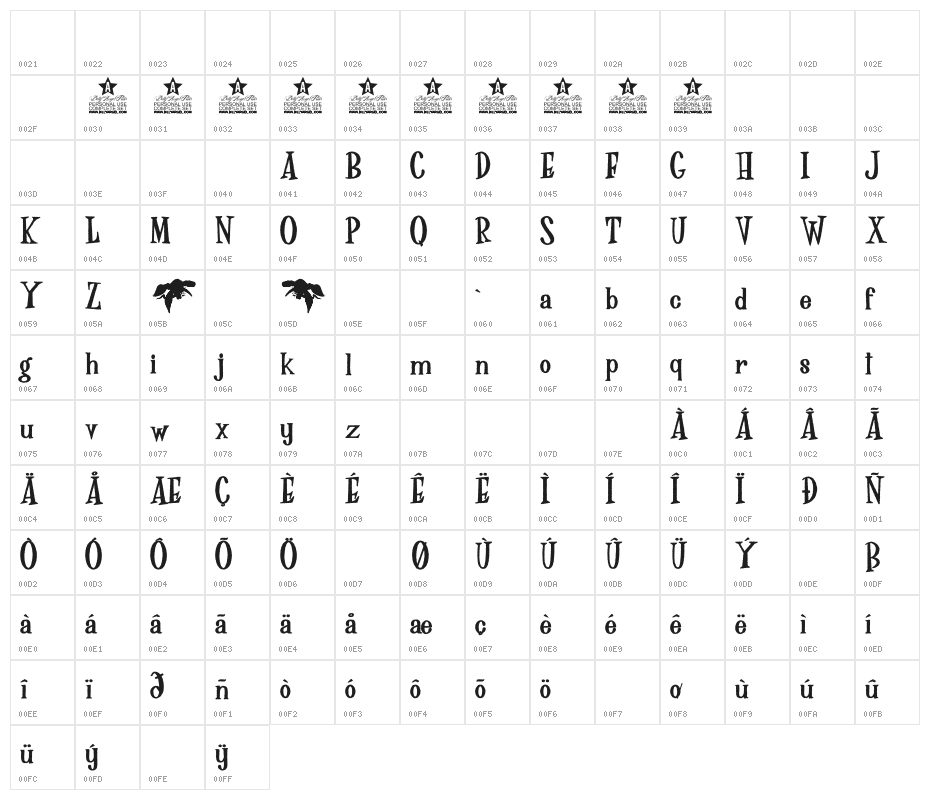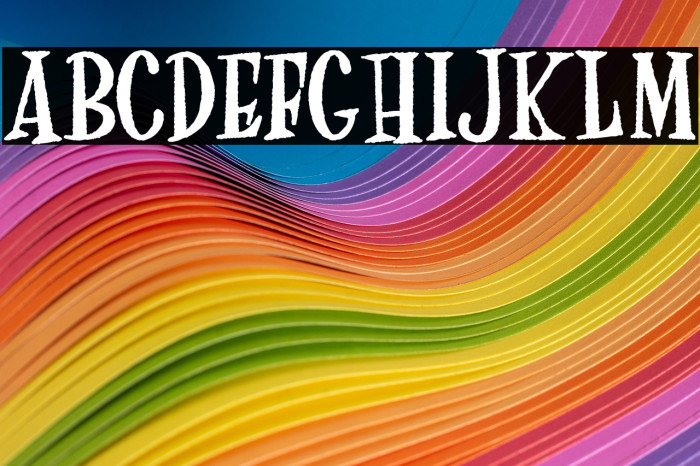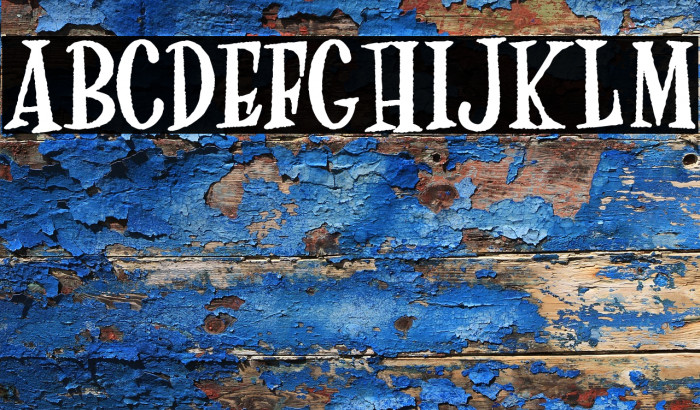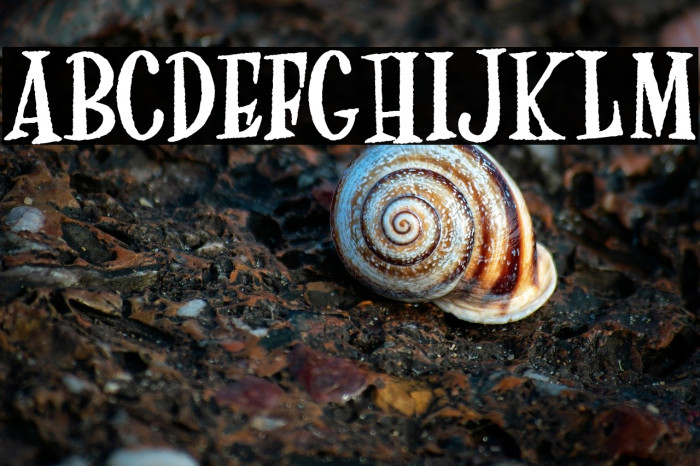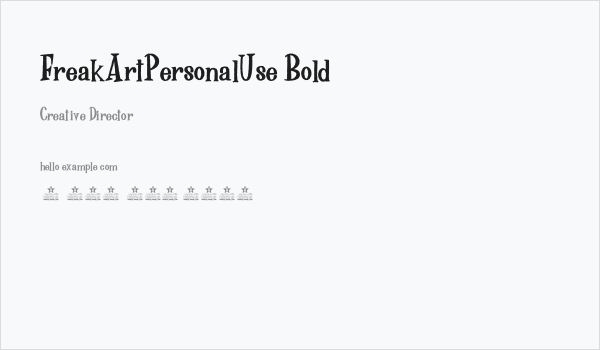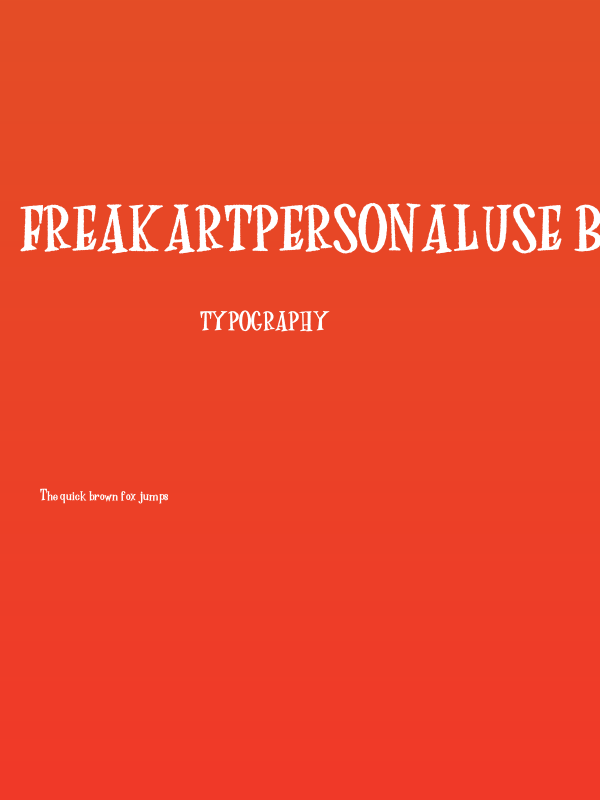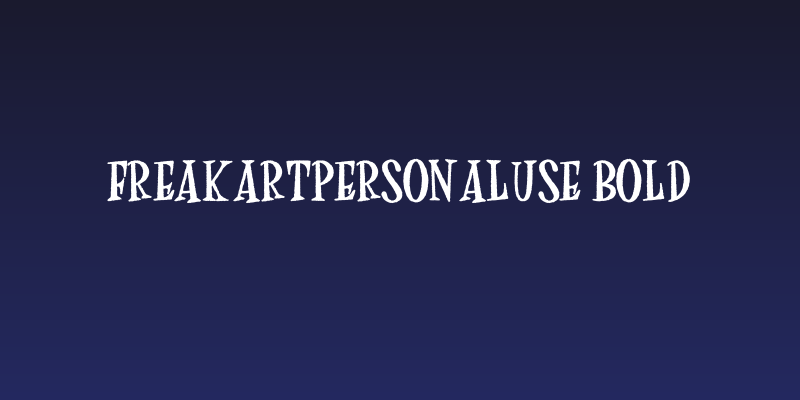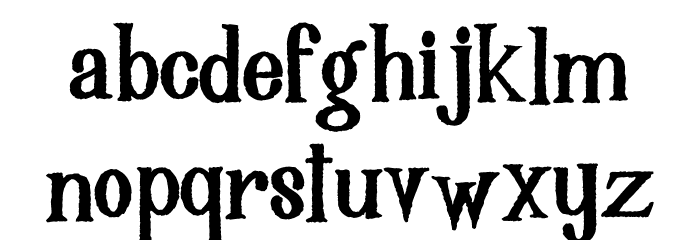
FreakArtPersonalUse-Bold Font
FreakArtPersonalUse-Bold Description
This font features a bold and artistic style with a hand-drawn appearance. The uppercase letters are tall and slightly irregular, giving them a whimsical and playful feel. The lowercase letters maintain this artistic flair, with unique curves and angles that add character. The numbers and special characters follow the same design principles, ensuring consistency throughout. The overall texture is rough, resembling brush strokes or ink, which enhances its creative and expressive nature.
| Overall Style | Artistic, Whimsical, Expressive |
| Use Case | Headlines, Artistic Branding, Posters |
| Proposed Projects | Ideal for creative projects such as posters, album covers, and artistic branding. It can also be used for headlines in magazines or websites that aim for a unique and expressive look. |